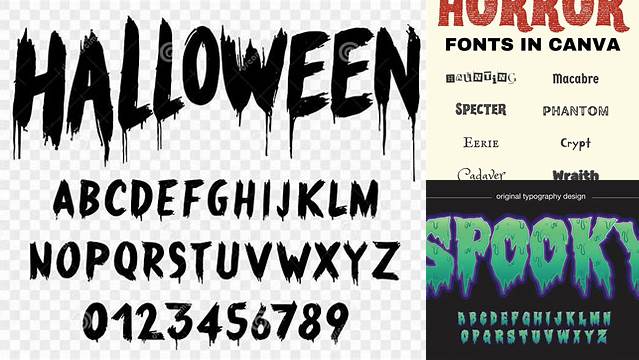
Font Horror Free Download: Spooky Fonts For Your Designs
Hey guys! Are you looking to add a touch of horror to your designs? You've come to the right place! In this article, we'll explore the chilling world of font horror free downloads. We'll dive deep into what makes a font truly terrifying, where you can find these spooky treasures, and how to use them to create spine-chilling designs. So, buckle up, and let's get ready to unleash some typographic terror!
What Makes a Font “Horror”?
Let's kick things off by defining what exactly makes a font fall into the “horror” category. It's not just about slapping on some blood splatters or jagged edges (though those can definitely help!). A true horror font evokes feelings of dread, unease, and maybe even a little bit of fear. Think about the fonts you've seen in classic horror movie posters, the creepy titles of your favorite scary books, or the unsettling text in a haunted house invitation. What did they have in common?
Generally, horror fonts play with certain visual elements to create their unsettling effect. Distorted shapes, uneven lines, and a sense of decay are key ingredients. Imagine letters that look like they've been scratched into stone, dripping with some unknown substance, or twisted into unnatural forms. The best horror fonts also have a subtle sense of imbalance, making the text feel unstable and unsettling to the eye. This can be achieved through varying stroke weights, inconsistent letter spacing, or by adding subtle imperfections that mimic the handmade or weathered look of ancient inscriptions or graffiti found in creepy locations.
Beyond the visual elements, the overall personality of a horror font is also crucial. A font can be technically well-designed but still fail to convey the intended feeling of dread if it lacks the right character. Consider the psychological impact of different shapes and textures. Jagged edges can suggest danger and aggression, while rounded forms might hint at something more insidious lurking beneath the surface. The weight and density of the font also play a role; a heavy, bold font can feel oppressive and menacing, whereas a lighter, more delicate font might evoke a sense of fragility and vulnerability. Ultimately, a truly effective horror font is one that taps into our primal fears and anxieties, creating a visceral reaction in the viewer. It’s about more than just aesthetics; it's about storytelling through typography.
To sum it up, a horror font is more than just a scary-looking typeface; it's a carefully crafted tool that uses visual cues and psychological associations to evoke a sense of dread, fear, and unease. It's about capturing the essence of the horror genre and translating it into a tangible design element.
Where to Find Font Horror Free Downloads
- Creative Market Free Goods Section: Creative Market, a popular marketplace for design assets, offers a rotating selection of free goods, including fonts. It's worth checking this section regularly, as you might stumble upon some amazing horror fonts that are available for a limited time.
- Font Squirrel: Font Squirrel is a fantastic resource for free fonts that are licensed for commercial use. They have a wide variety of styles, and you can easily filter your search by category or tag to find horror fonts.
- Individual Designers and Foundries: Sometimes, individual designers and foundries offer free fonts on their own websites or through social media. Following your favorite type designers and foundries on social media can be a great way to stay updated on new releases and freebies.
When downloading font horror free downloads, always double-check the license agreement. Free fonts often come with certain usage restrictions, such as limitations on commercial projects or the need to credit the designer. Make sure you understand the terms of the license before using the font to avoid any potential legal issues down the road. It's also a good idea to scan downloaded font files with an antivirus program to ensure they're free from malware.
In your quest for the perfect horror font, remember that the best option depends on the specific needs of your project. Consider the mood and tone you're trying to create, the overall aesthetic of your design, and the intended audience. With a little bit of searching and careful consideration, you'll be able to find the perfect horror font to bring your spooky visions to life.
Remember, horror fonts are a powerful tool for creating designs that evoke feelings of dread, unease, and fear. By understanding the nuances of these typefaces and using them strategically, you can elevate your projects and captivate your audience. So go ahead, download some chilling fonts, and start creating some seriously scary designs. Happy haunting!